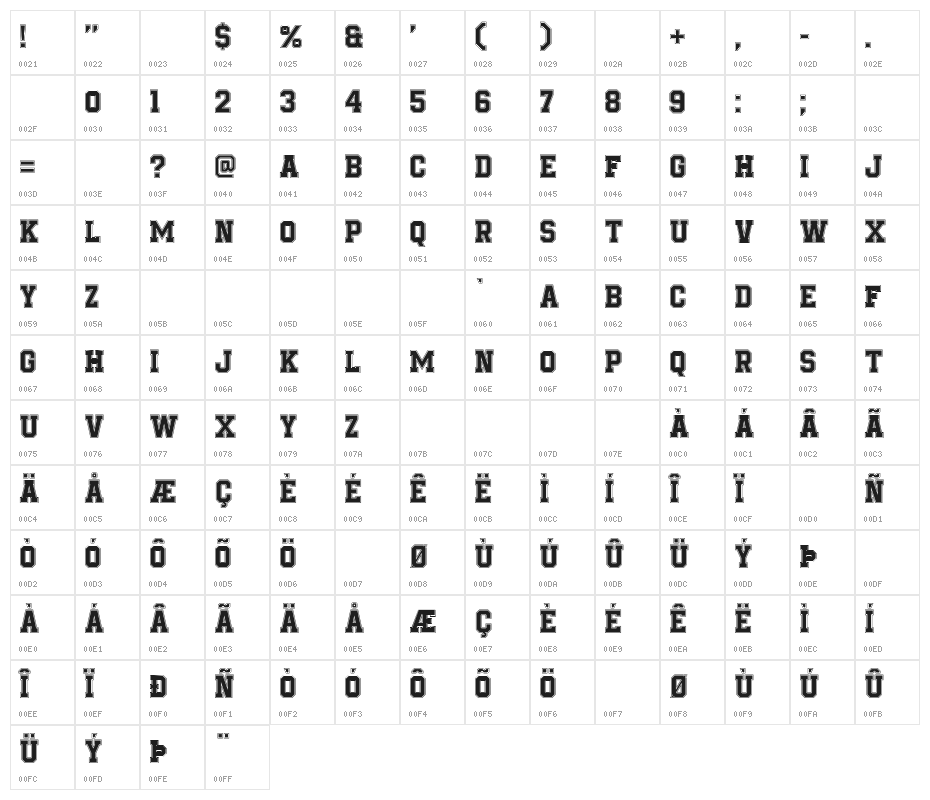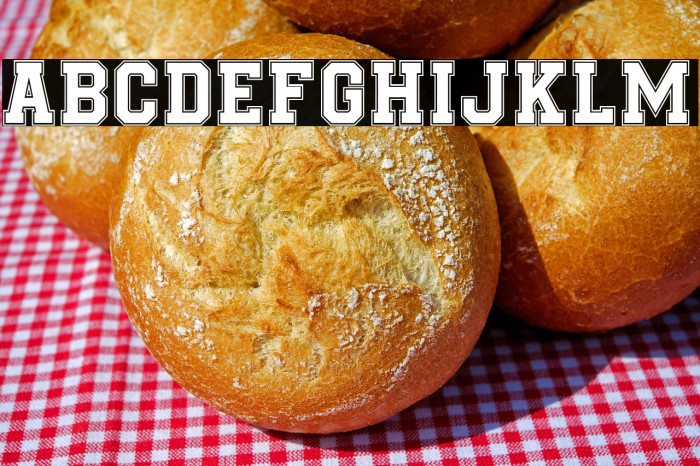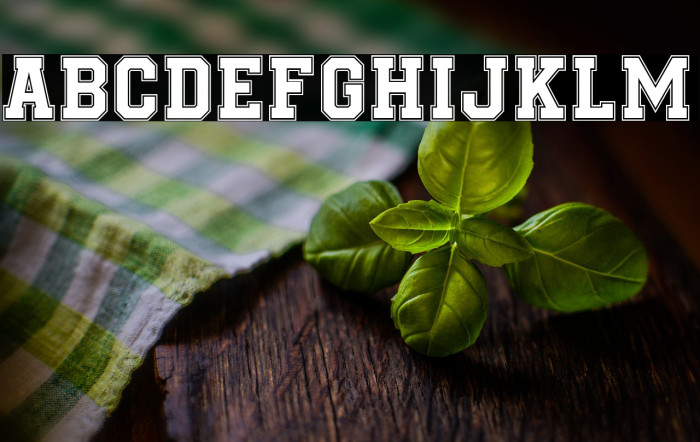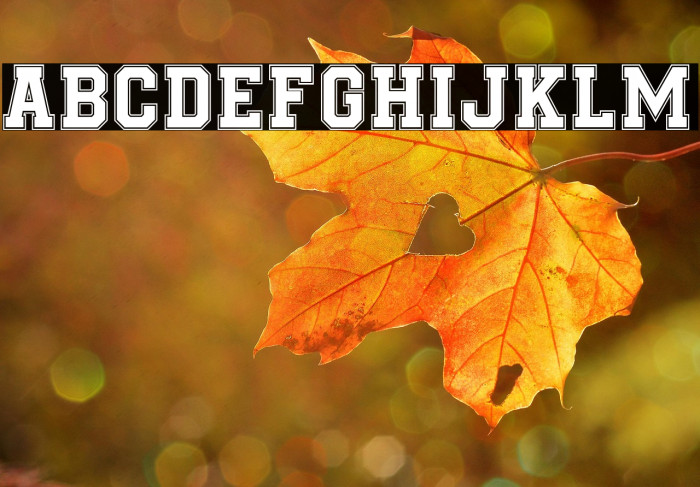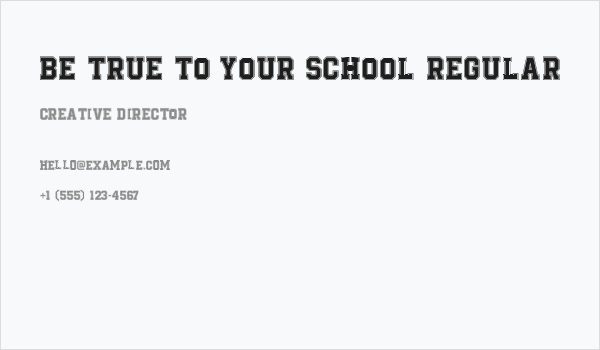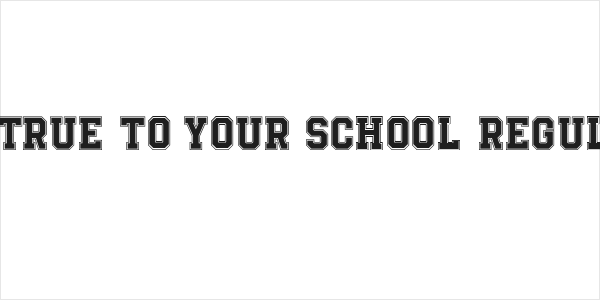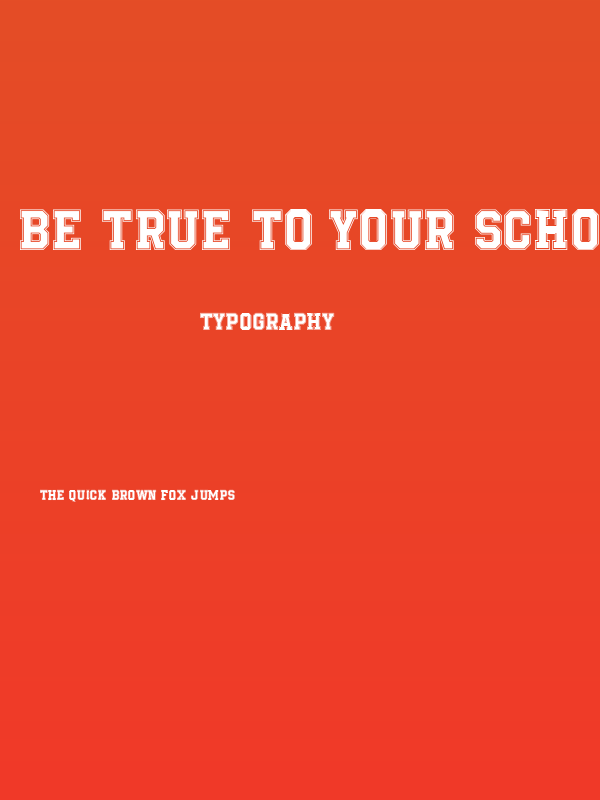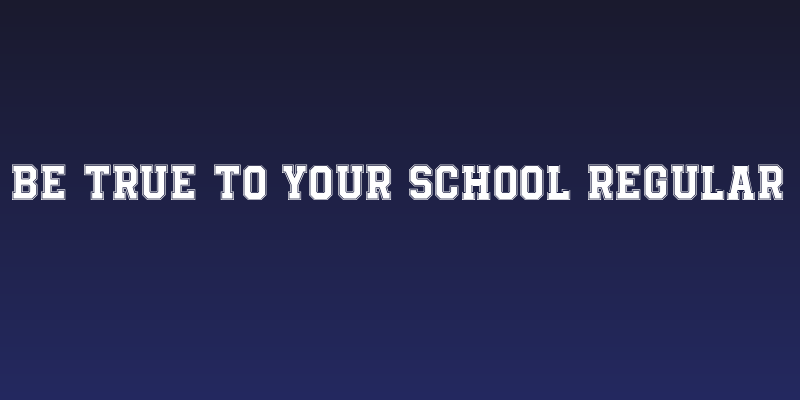
Be True To Your School Regular Font
Be True To Your School Regular Description
This font features a bold, collegiate style with strong, block-like characters. Each letter is outlined, creating a striking, layered effect that enhances its visibility and impact. The design is reminiscent of traditional varsity or sports team lettering, making it ideal for projects that require a sense of strength and tradition. The characters are evenly spaced, ensuring readability even at smaller sizes. The numbers and special characters maintain the same bold, outlined style, providing consistency across all text elements.
| Proposed Projects | Ideal for sports team branding, school merchandise, event posters, and any project needing a bold, traditional look. |